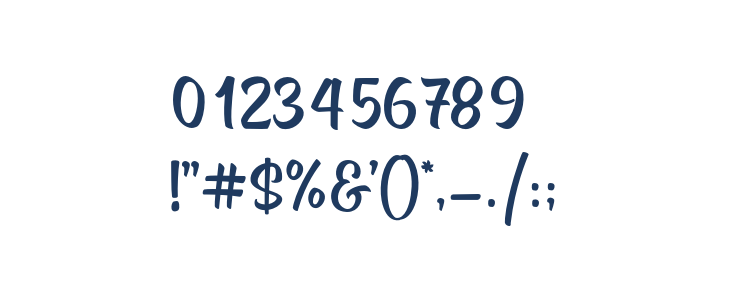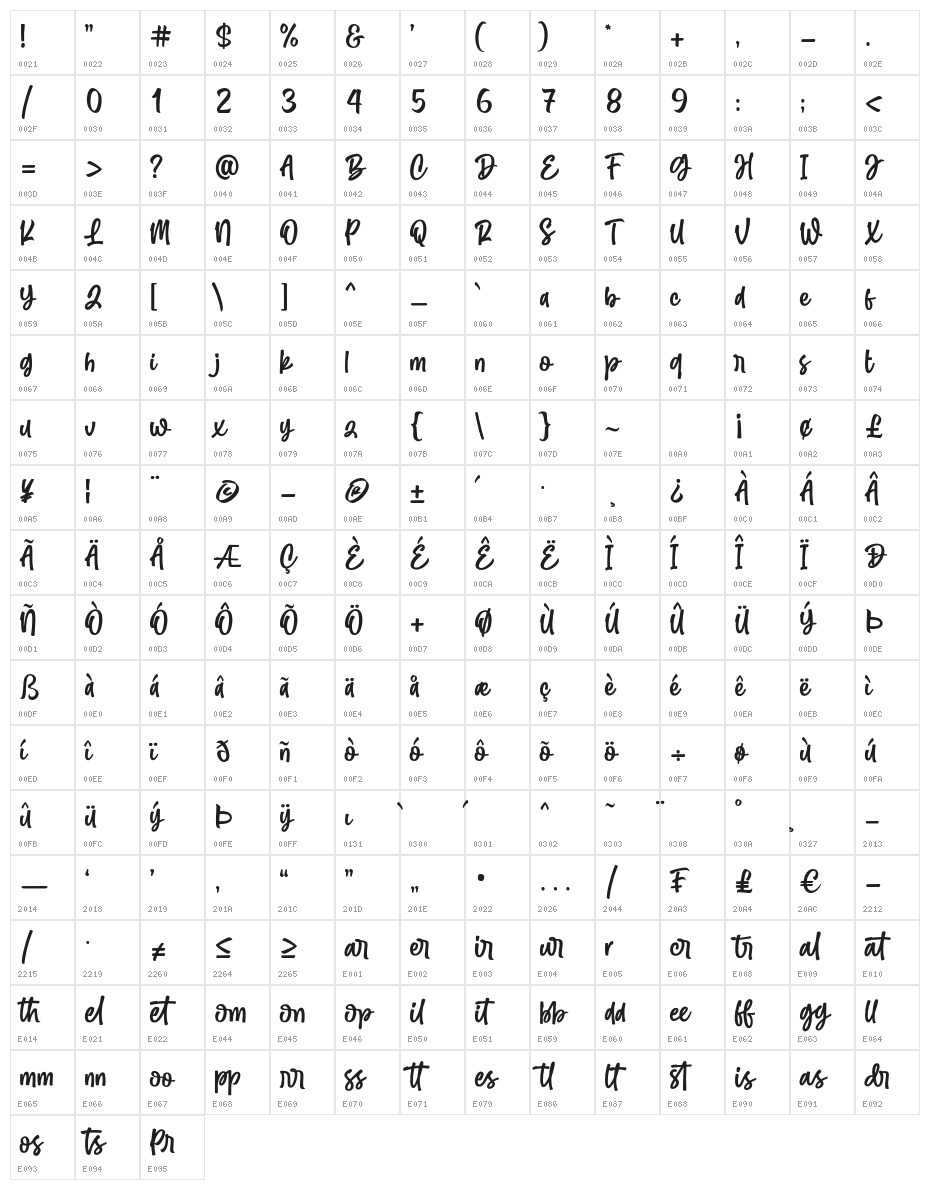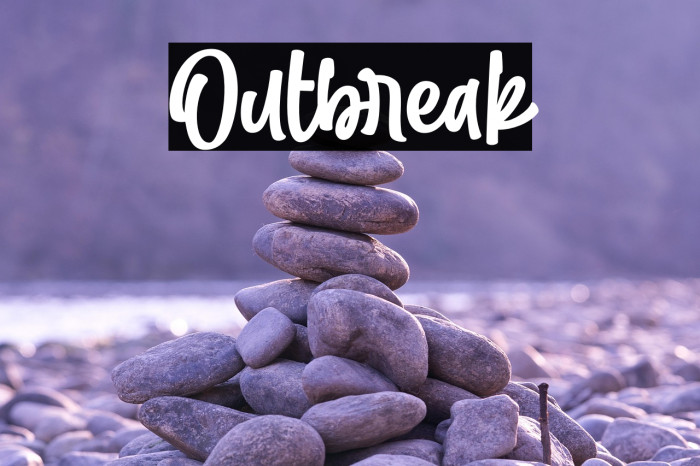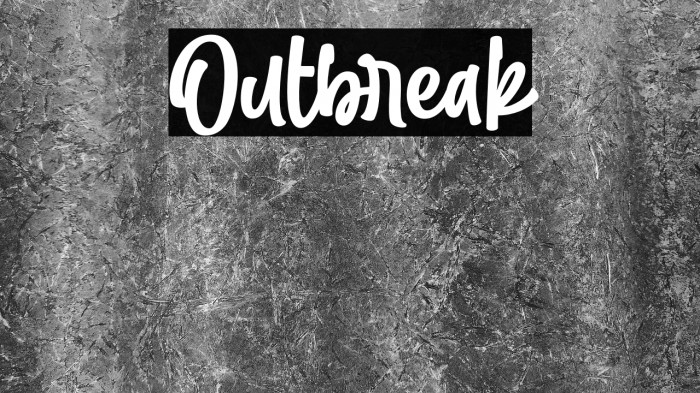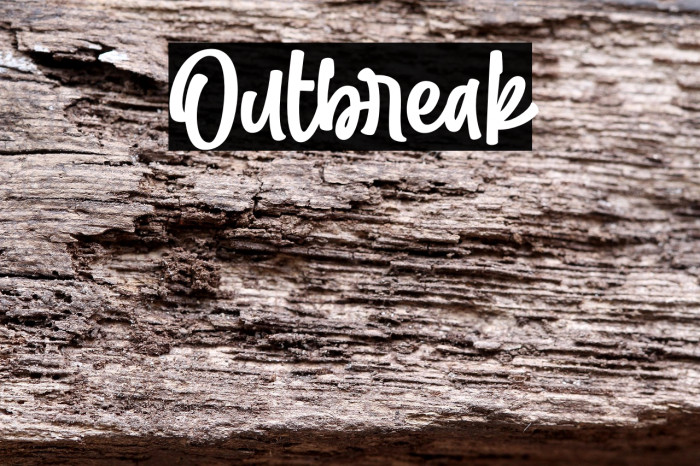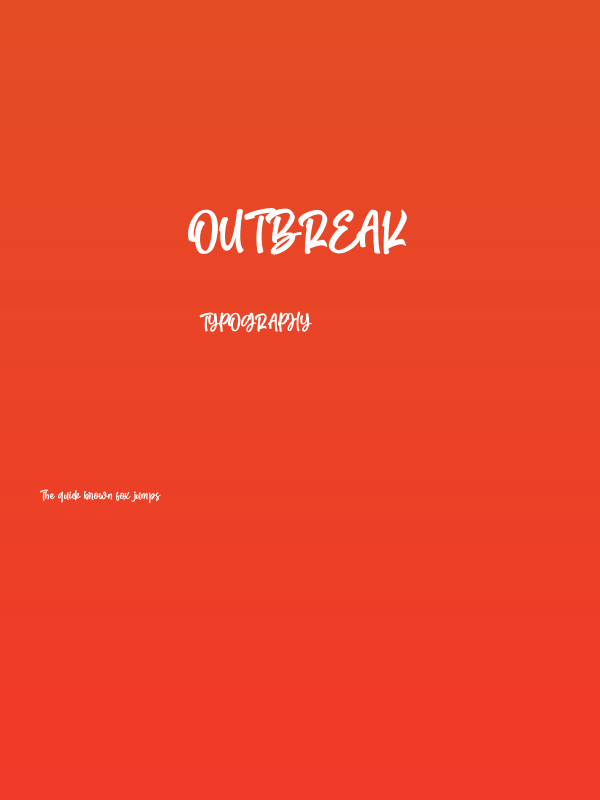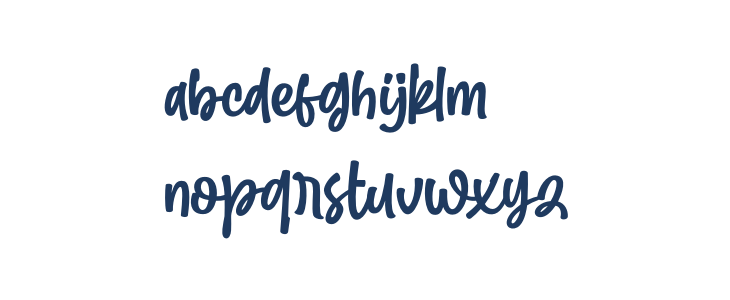
Outbreak Font
Outbreak Description
This font features a lively and energetic script style, characterized by its bold and flowing strokes. The letters are connected in a cursive manner, giving it a handwritten appearance that is both casual and stylish. The uppercase letters are slightly more structured, while the lowercase letters exhibit a playful and dynamic flow. The numerals and special characters maintain the same energetic style, ensuring consistency across all characters. This font is perfect for projects that require a personal touch or a sense of movement and creativity.
| Overall Style | Modern, Decorative |
| Use Case | Logos, Headlines, Invitations |
| Proposed Projects | Ideal for greeting cards, invitations, branding, and social media graphics. |